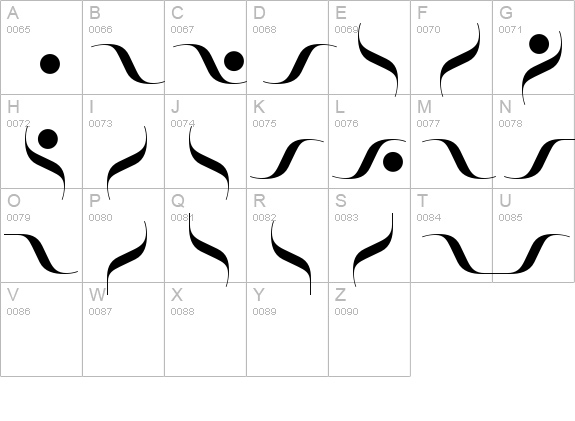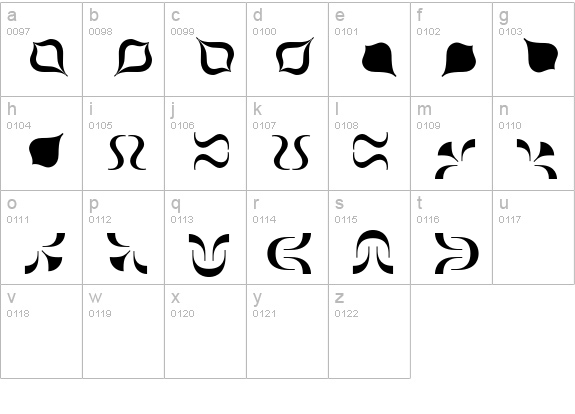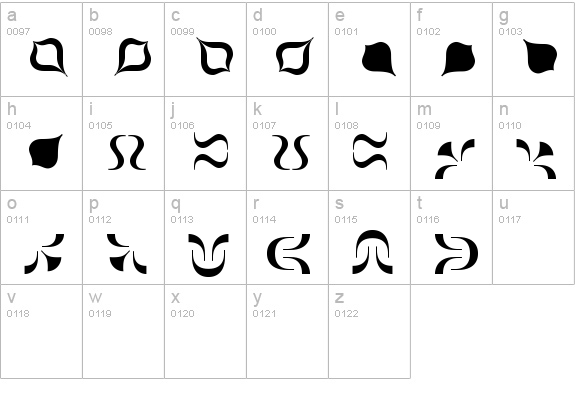
Pompeijana Borders Font Details
Pompeijana Borders font is a stunning display typeface that exudes elegance and sophistication. With intricate patterns and ornate details inspired by ancient Roman art and architecture, this font is perfect for adding a touch of luxury to your design projects. The exquisite borders and embellishments of Pompeijana Borders font are sure to captivate and impress your audience. What's even better is that Pompeijana Borders font is available for free download at FontsMarket.com. This means you can easily access and use this beautiful font in your projects without any cost. Whether you're designing invitations, branding materials, or social media graphics, Pompeijana Borders font will elevate your creations to a whole new level. Embrace the timeless beauty of Pompeijana Borders font and make your designs shine with its classic charm.